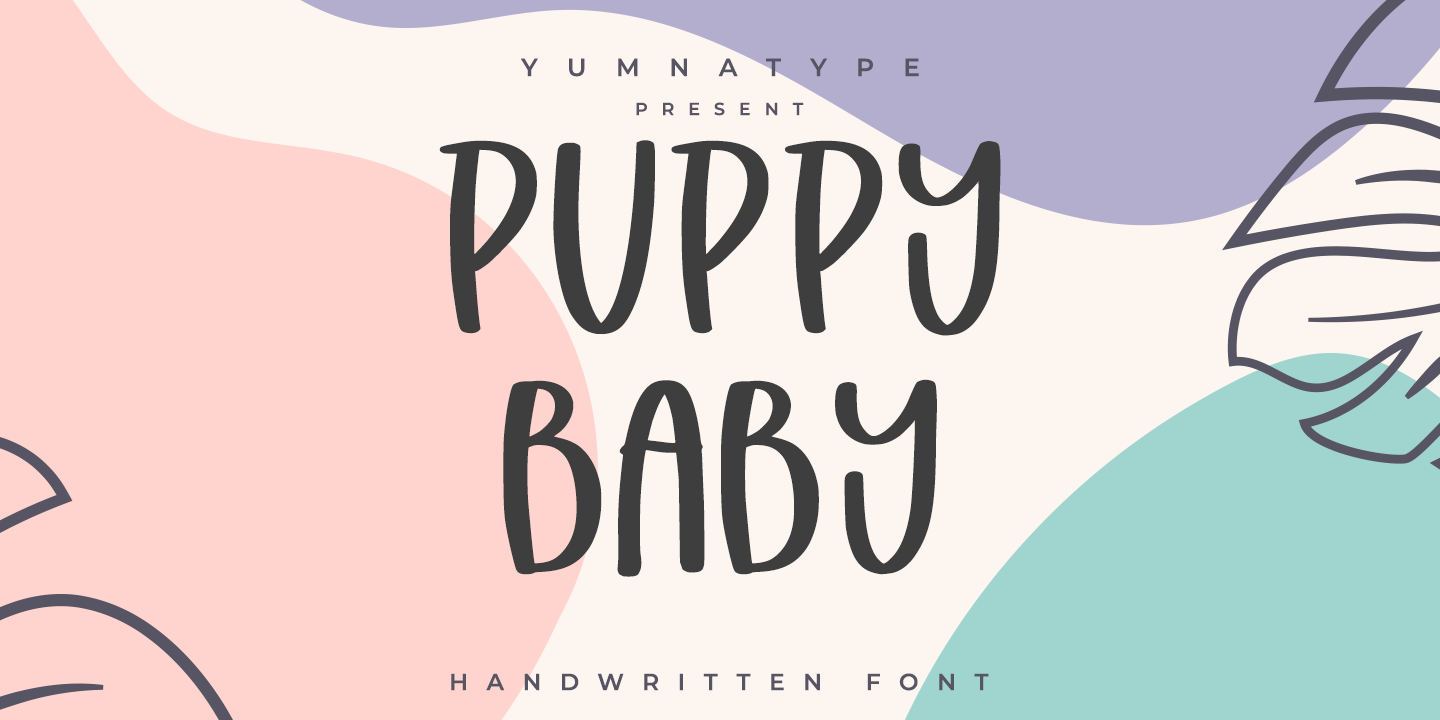
Puppy Baby Font excels in children's book illustrations, baby shower invitations, nursery room decorations, pet store branding, playful toy packaging, kindergarten educational materials, adorable greeting cards, child-friendly app interfaces, cute social media graphics, and innocent marketing campaigns. Its endearing character makes it perfect for projects requiring pure sweetness and heartwarming appeal that melts hearts instantly.
What makes Puppy Baby Font exciting is its irresistible combination of puppy-like playfulness with baby-soft tenderness that creates typography capable of evoking immediate joy and protective instincts. The font features rounded, bouncy letterforms with gentle imperfections that mimic the adorable clumsiness of puppies and babies while maintaining perfect readability. Its endearing character transforms ordinary text into expressions of pure innocence that appeal to nurturing emotions across all age groups.
The Puppy Baby Font family includes Regular, Bold, Light, Playful, Cuddly, Sweet, and Adorable variations. Each style maintains the font's endearing essence while offering different levels of cuteness and playful energy for creating heartwarming design applications. The comprehensive character set includes adorable symbols, puppy ornaments, baby decorations, and sweet glyphs essential for authentic child-focused and pet-related typography projects.
Parents and child-focused businesses consistently choose Puppy Baby Font Free Download for projects demanding genuinely adorable typography solutions. The font's endearing character instantly establishes emotional connections while ensuring clear communication across family-oriented marketing channels. Its versatility spans from subtle cute touches to bold statements that celebrate the joy and innocence of childhood and pet companionship.
Whether you're developing children's brand identities, creating family-friendly marketing materials, or designing pet-related communications, Puppy Baby Font provides the perfect combination of heart-melting appeal and functional clarity. The font's lovingly crafted letterforms ensure excellent performance while maintaining the irresistible charm that makes viewers smile and feel warm inside.
The innocent heritage of Puppy Baby Font makes it exceptional for creating emotional bonds with audiences who cherish childhood wonder and unconditional love. Its adorable precision and sweet appeal work seamlessly across traditional children's materials and modern digital family platforms. The font performs delightfully in both large-scale playful displays and intimate personal communications.
Spread pure joy with Puppy Baby Font and discover how genuinely adorable typography can enhance your projects with heartwarming appeal and innocent charm. This remarkable typeface combines childhood wonder with pet-like playfulness, making it indispensable for anyone seeking to create communications that celebrate the beautiful innocence and unconditional love found in babies and puppies.